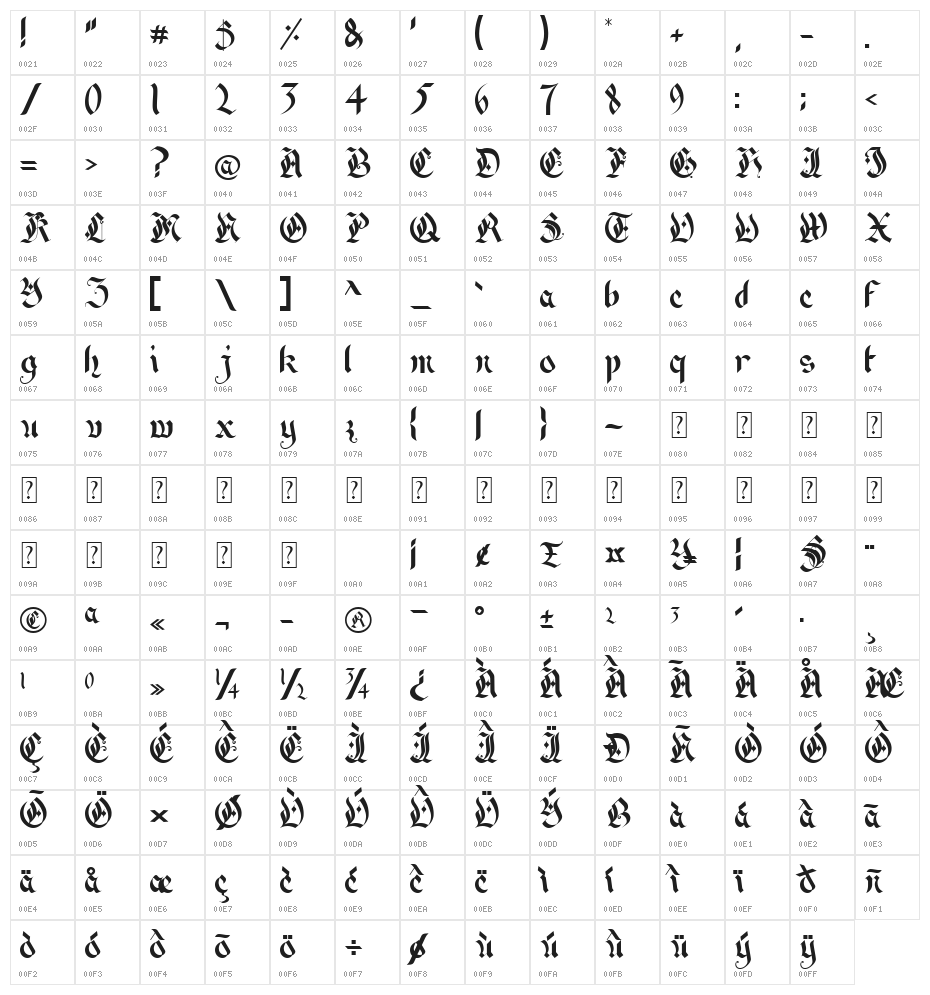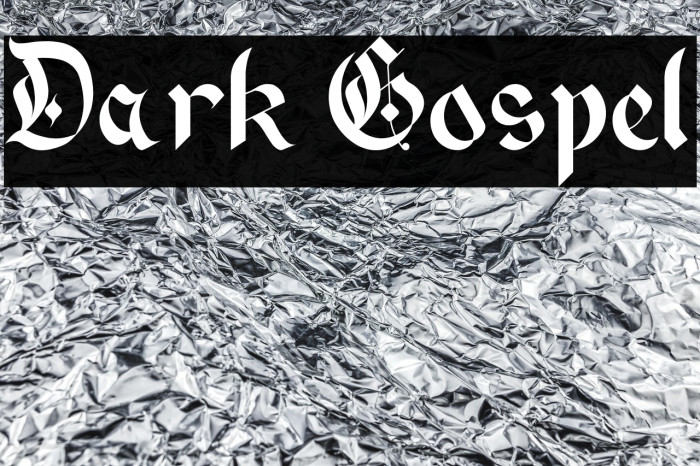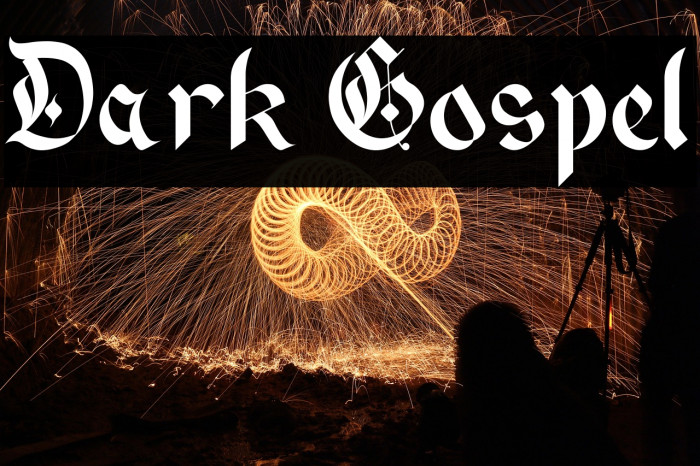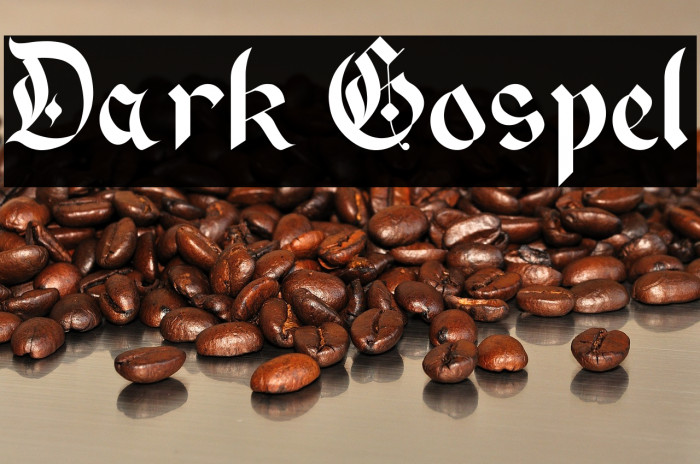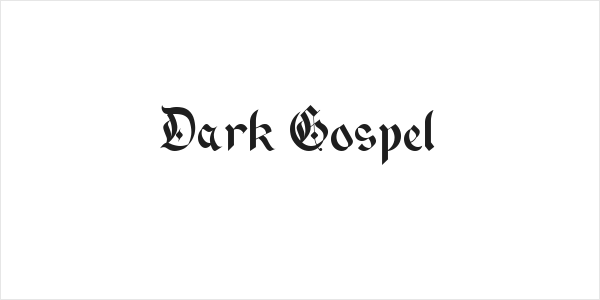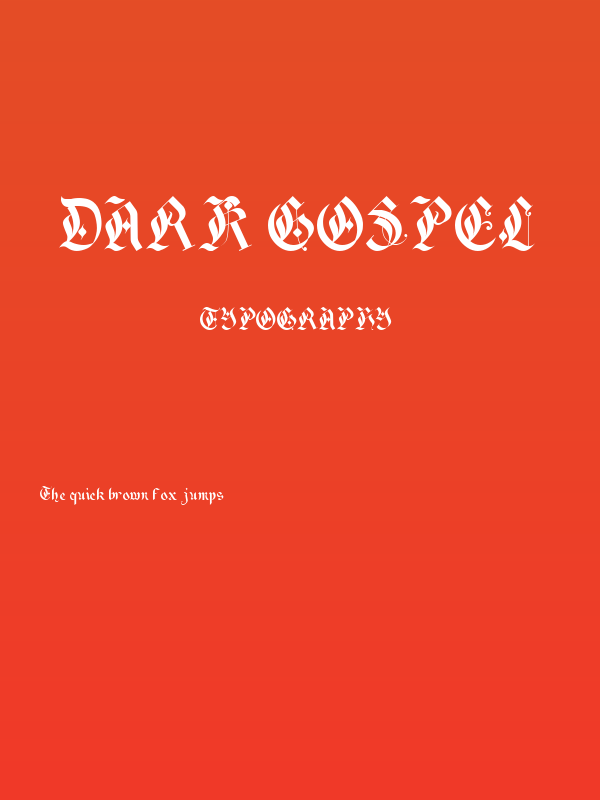
Dark Gospel Font
Dark Gospel Description
This font exudes a strong, gothic aesthetic with its intricate and ornate design. The characters are reminiscent of medieval script, featuring sharp angles and dramatic flourishes. The uppercase letters are particularly elaborate, with bold strokes and decorative elements that give them a regal appearance. The lowercase letters maintain the gothic theme, with a slightly more subdued style that complements the uppercase. Numbers and special characters are crafted with the same attention to detail, ensuring a cohesive look across all elements. This font is perfect for projects that require a historical or dramatic flair, such as event posters, book covers, or branding for luxury products.
| Overall Style | Gothic |
| Proposed Projects | Ideal for historical-themed projects, event posters, book covers, and luxury branding. |